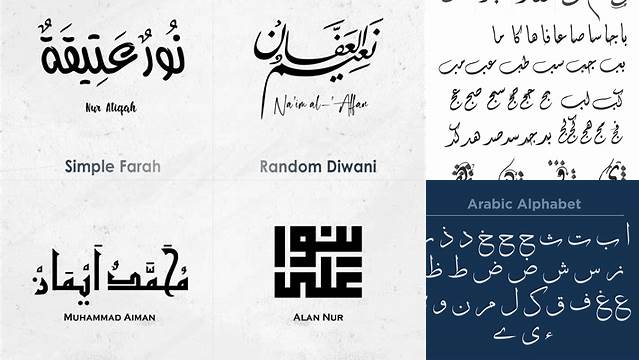
Hey guys! Ever been mesmerized by the elegant swirls and curves of Arabic calligraphy? It's a beautiful art form, and the good news is, you don't have to be a master calligrapher to use it in your projects. With the magic of calligraphy fonts, you can easily add that artistic touch to your designs, social media posts, or anything else you can dream up. This article is your ultimate guide to all things calligraphy fonts copy paste arabic, so let's dive in!
1. Understanding Arabic Calligraphy
Arabic calligraphy, also known as khatt, is more than just beautiful writing; it's a centuries-old art form deeply rooted in Islamic culture and tradition. Arabic calligraphy holds a significant place in the world of art and design, and its elegance and intricacy have captivated people for centuries. Calligraphy fonts copy paste arabic is a digital interpretation of this exquisite art, allowing you to incorporate its beauty into your designs without needing to master the traditional techniques. The flowing strokes and unique letterforms of Arabic script make it a visually stunning choice for various applications, from logos and branding to invitations and social media graphics. Understanding the history and cultural significance of Arabic calligraphy can deepen your appreciation for these fonts and inspire you to use them thoughtfully. Before we jump into copying and pasting these gorgeous fonts, let's take a moment to appreciate the rich history and artistry behind them. The flowing lines and intricate details aren't just pretty; they tell stories and carry cultural significance. This art form, developed over centuries, uses the Arabic alphabet in a fluid and artistic way. From the bold and geometric Kufic script to the elegant and cursive Naskh, each style has its own character and purpose. When you use a calligraphy font copy paste arabic, you're not just adding text; you're adding a touch of history and tradition. Different styles of Arabic calligraphy each have their own unique aesthetic and historical context. Understanding these styles can help you choose the right font for your project, ensuring it conveys the intended message and tone. Kufic, for instance, is known for its angular and geometric forms, often used in early Islamic manuscripts and architectural inscriptions. Naskh, on the other hand, is a more rounded and flowing script, widely used in printed materials and everyday writing. Thuluth is a majestic and elaborate script often seen in mosques and decorative panels, while Diwani is a cursive and ornamental script favored for official documents and diplomas. By familiarizing yourself with these styles, you can select calligraphy fonts copy paste arabic that align perfectly with your creative vision.
2. Exploring Different Styles of Arabic Calligraphy Fonts
When it comes to calligraphy fonts copy paste arabic, you're spoiled for choice! There's a wide variety of styles to explore, each with its own personality and flair. Whether you're looking for something bold and traditional or something modern and elegant, there's an Arabic calligraphy font out there for you. Some popular styles include Kufic, known for its geometric shapes and strong lines; Naskh, a more rounded and flowing script often used in printed materials; and Thuluth, a majestic and ornamental style perfect for headings and titles. Then there's Diwani, a cursive and decorative script that adds a touch of sophistication to any design. The diverse range of styles within Arabic calligraphy fonts opens up a world of creative possibilities. From the classic elegance of Naskh to the bold expressiveness of Thuluth, each style offers a unique way to enhance your projects. Calligraphy fonts copy paste arabic allow you to experiment with different looks and feels, ensuring your designs resonate with your intended audience. Consider the message you want to convey and the overall aesthetic you're aiming for when selecting a font style. A modern interpretation of Kufic, for example, might be perfect for a contemporary logo, while a traditional Thuluth font could add a touch of grandeur to an invitation. By exploring the nuances of each style, you can create designs that are both visually stunning and culturally relevant.